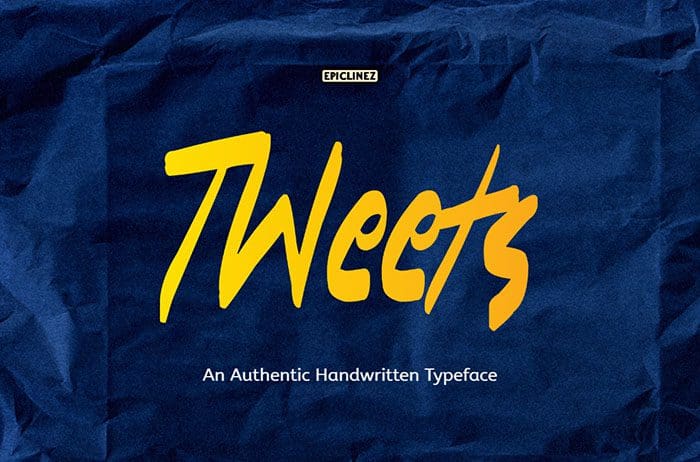
Tweets Playful Handwritten Font
Tweets playful handwritten font. It has a natural feel and looks to it. If you combine the uppercase letters with the lower case letters randomly, you will get a perfect imperfection flow like a raw river in a forbidden jungle. Very Satisfying. This font is available only for personal use. Created this font by Epiclinez. You can also search more free Fonts. Thanks!